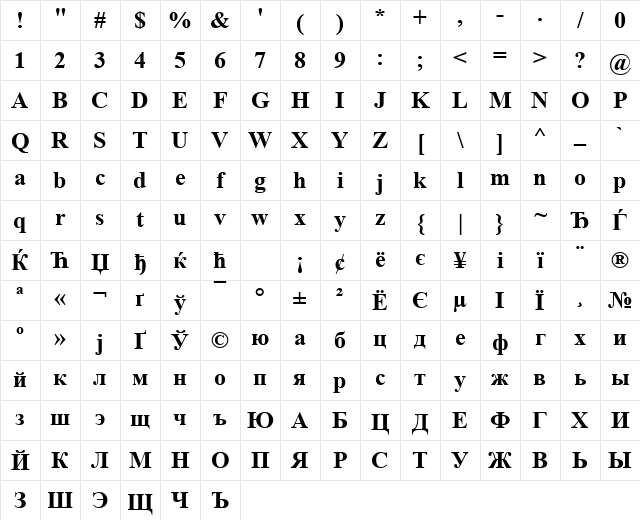
Times New Roman KOI8 Bold Free Font
Times New Roman KOI8 Bold
Designer: Monotype Type Drawing Office - Stanley Morison, Victor Lardent 1932
Design Context for Times New Roman KOI8
Times New Roman KOI8 is a composed and adaptable typeface that performs quietly and consistently across a wide range of design contexts. Its bold stroke weight gives it real presence on the page.